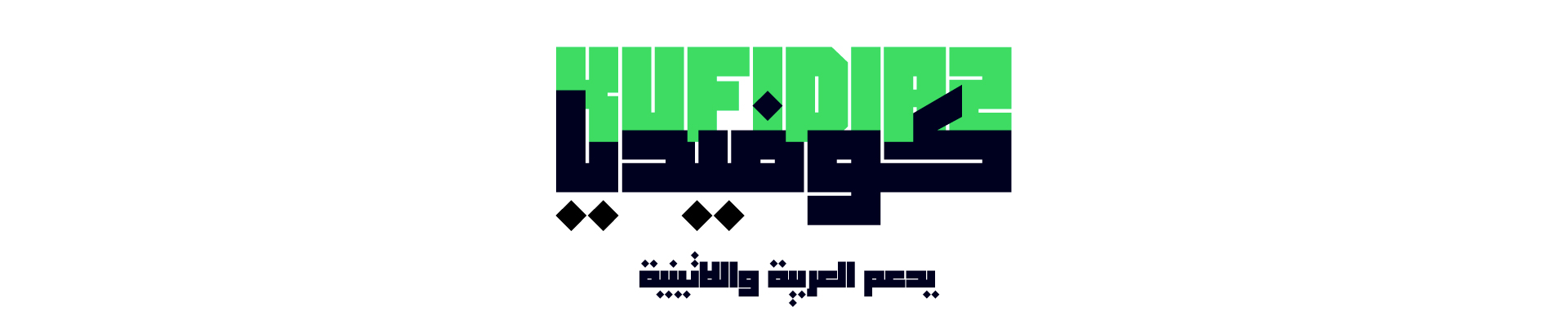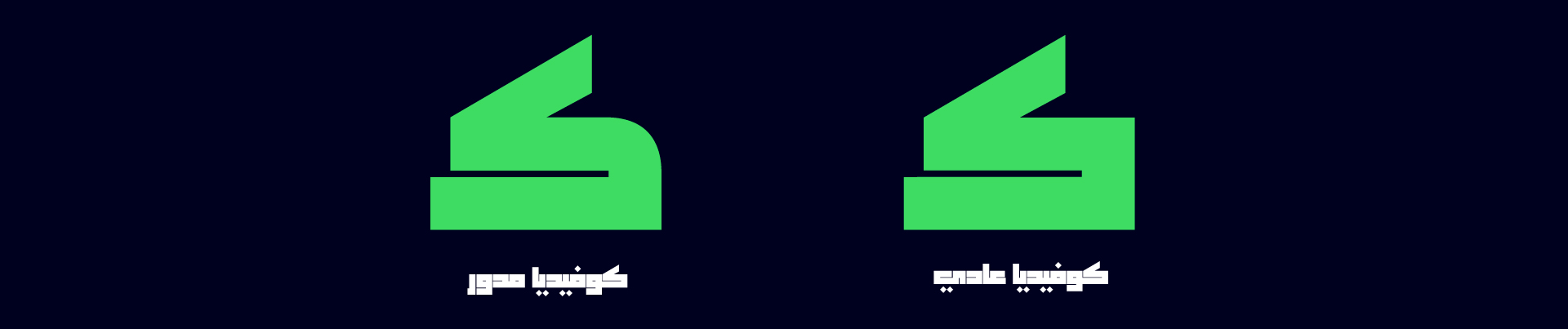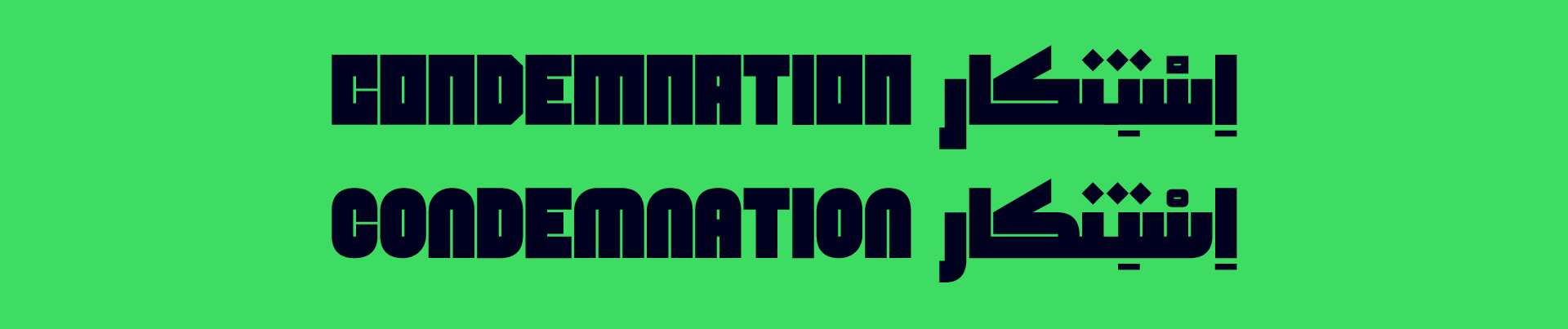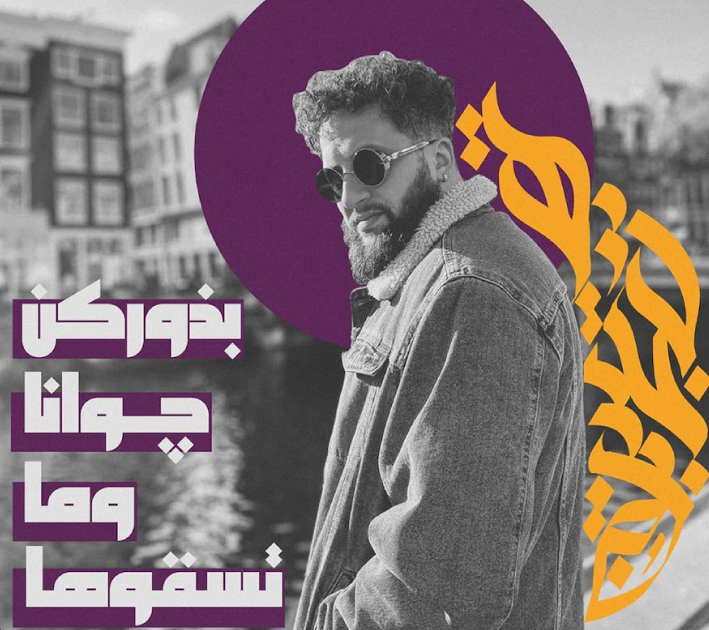
• Kufidia Font
About Kufidia Font
Introduction:
Kufidia It is a square Kufic font that is derived from the rules of traditional Kufic script. The proportions of its letters are based on the half suitable for titles.
Weights and Supported Languages:
Kufidia font is available in two styles “Normal-Semirounded”.
It supports Arabic and Latin.
Usage:
Kufidia is used in headlines, social media posts, and visual identities.
Designing & Developing:
TSfonts Type Foundry
Tarek Alsawwa